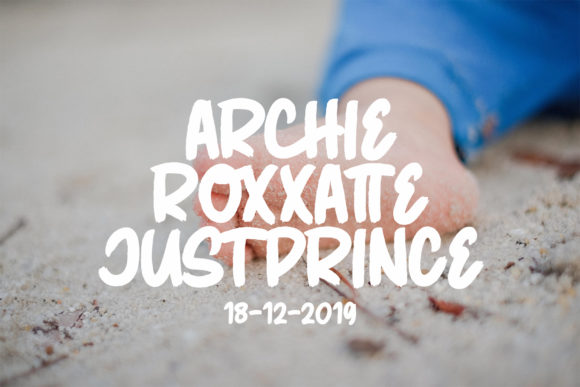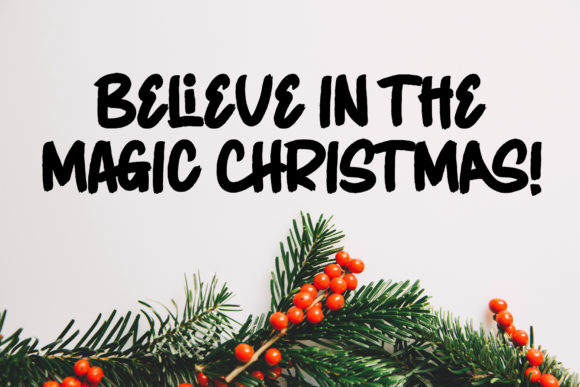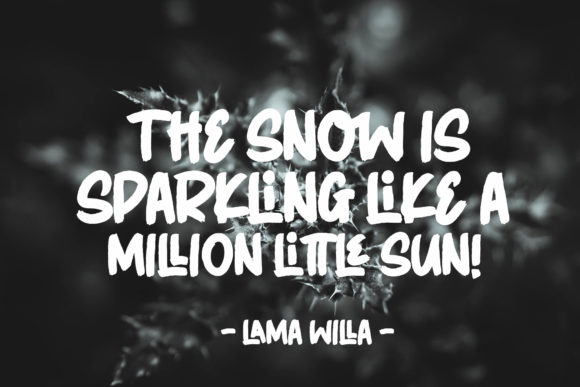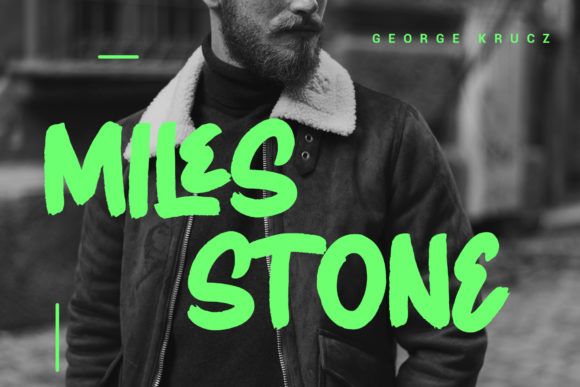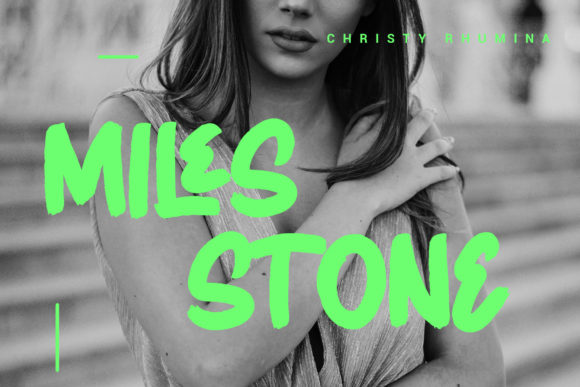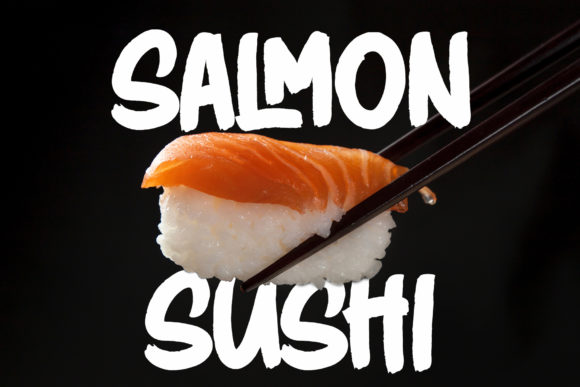
Introducing Firstborn Font: Elevate Your Designs with Elegance and Strength
Are you tired of using the same old fonts in your designs? Look no further! Firstborn Font is here to revolutionize your creative projects with its stunning script style that’s both gorgeous and strong. This beautiful font is designed to turn any design idea into a true standout, making it perfect for designers and crafters looking to add a touch of elegance and sophistication to their work.
The Power of Firstborn Font
Firstborn Font is more than just a pretty face. Its unique script style is carefully crafted to convey confidence, luxury, and creativity. Whether you’re working on a branding project, a wedding invitation, or a social media graphic, Firstborn Font is the perfect choice to make your design shine. With its strong and bold strokes, this font is sure to grab attention and leave a lasting impression.
What Makes Firstborn Font Special?
- Unique Script Style: Firstborn Font boasts a distinctive script style that’s both elegant and modern. Its flowing curves and sharp lines create a beautiful visual effect that’s sure to captivate your audience.
- High-Quality Design: This font is meticulously designed to ensure high-quality output in any design project. Whether you’re working on a digital or print project, Firstborn Font will deliver crisp and clear results.
- Versatile and Flexible: Firstborn Font is perfect for a wide range of design projects, from logos and branding to invitations, social media graphics, and more. Its versatility makes it an excellent addition to any designer’s toolkit.
- Pair it with a Sans-Serif Font: Combine Firstborn Font with a clean sans-serif font to create a beautiful contrast that adds visual interest to your design.
- Experiment with Colors: Firstborn Font looks stunning in a variety of colors. Try experimenting with different hues and shades to find the perfect match for your design.
- Play with Size and Style: Don’t be afraid to experiment with different font sizes and styles to add emphasis and create visual hierarchy in your design.
Who Can Benefit from Firstborn Font?
Firstborn Font is perfect for:
- Graphic Designers: Add a touch of elegance and sophistication to your designs with this stunning script font.
- Crafters and Artists: Use Firstborn Font to create beautiful and unique handmade projects, such as wedding invitations, greeting cards, and more.
- Small Business Owners: Elevate your brand with a professional and stylish font that’s sure to make your business stand out.
In conclusion, Firstborn Font is a gorgeous and strong script font that’s perfect for designers and crafters looking to add a touch of elegance and sophistication to their work. With its unique style, high-quality design, and versatility, this font is sure to become a staple in your design toolkit. So why wait? Download Firstborn Font today and start creating stunning designs that will leave a lasting impression!